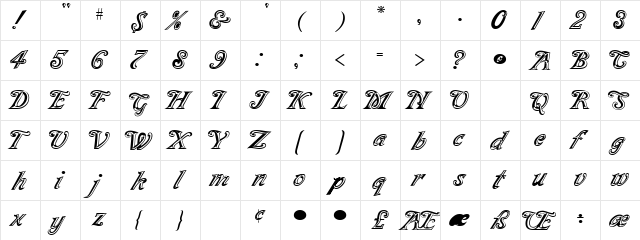
BraeburnScriptFacetsSSK Regular
Design Context for BraeburnScriptFacetsSSK Typeface
BraeburnScriptFacetsSSK flows with the natural rhythm of handwritten lettering, making it ideal for designs that call for warmth and personal expression.
Font Pairing: Combine BraeburnScriptFacetsSSK with a simple geometric sans for maximum contrast — the tension between flowing curves and clean structure is a classic typographic pairing.
Pro Tip: Use BraeburnScriptFacetsSSK for short runs of text — names, titles, or taglines. Extended body copy in script faces tires the eye quickly.